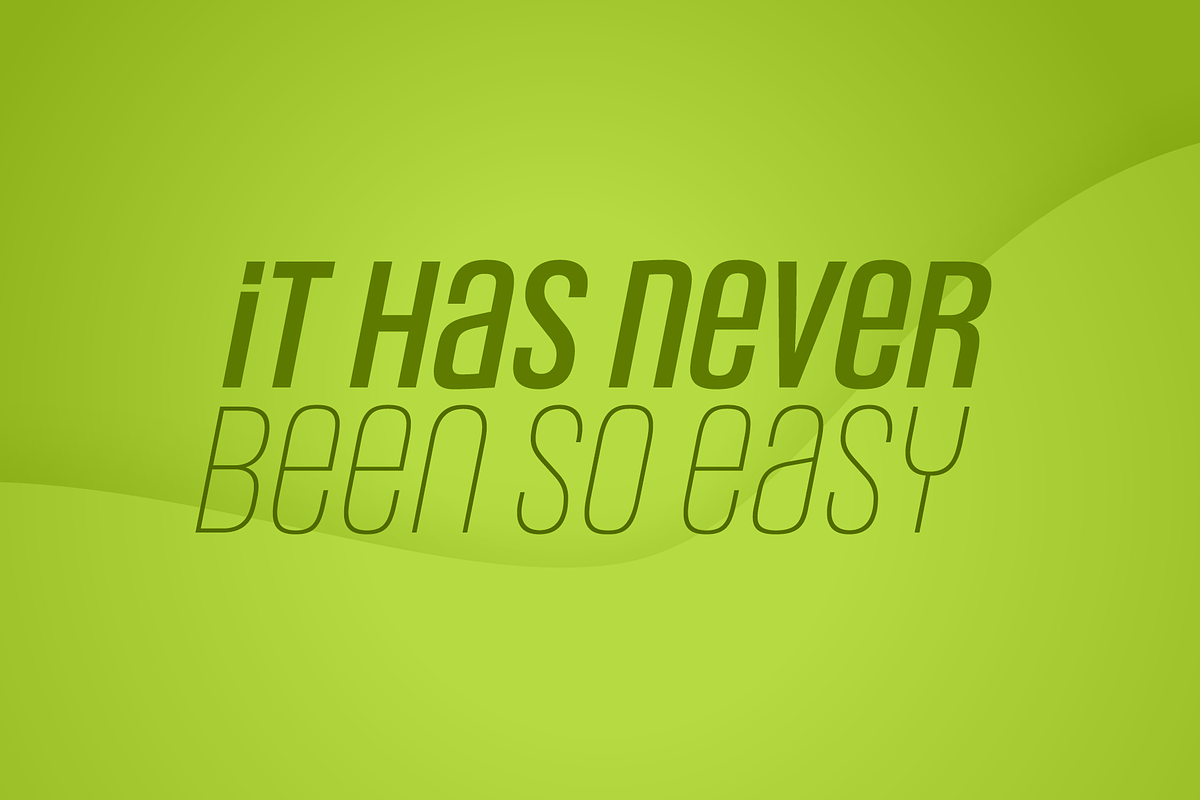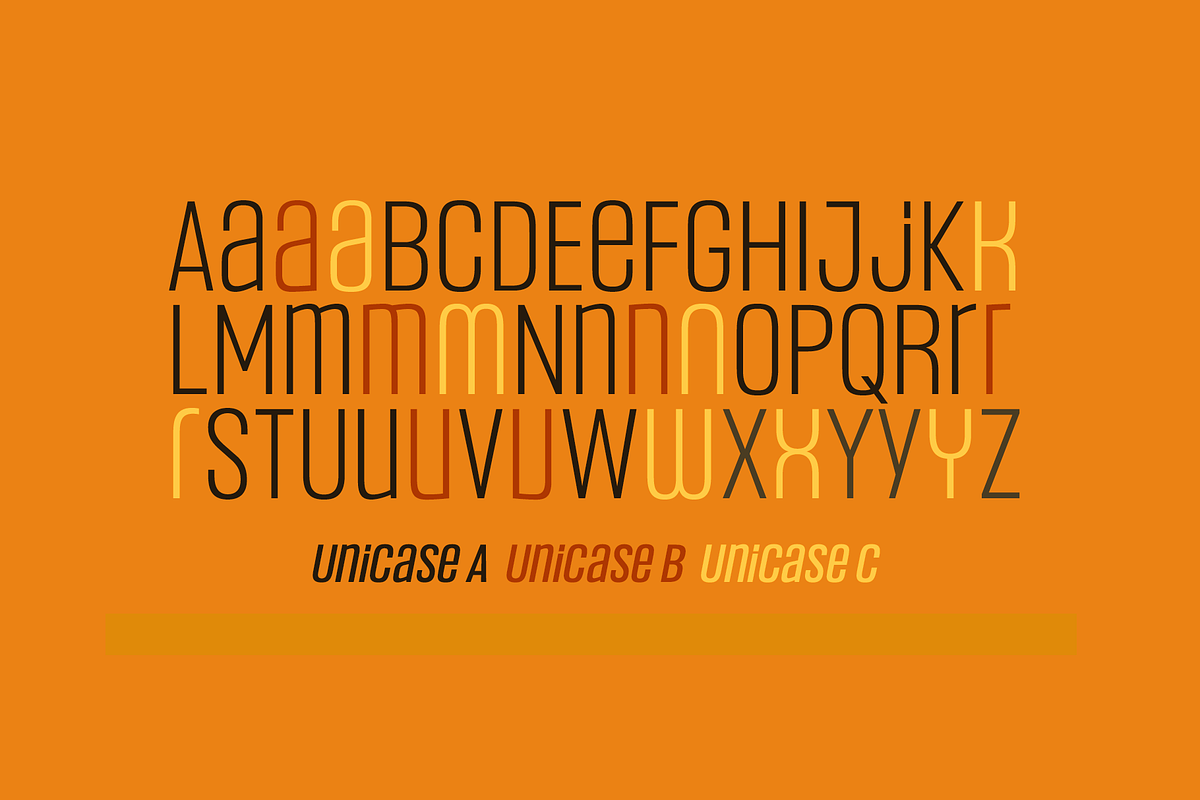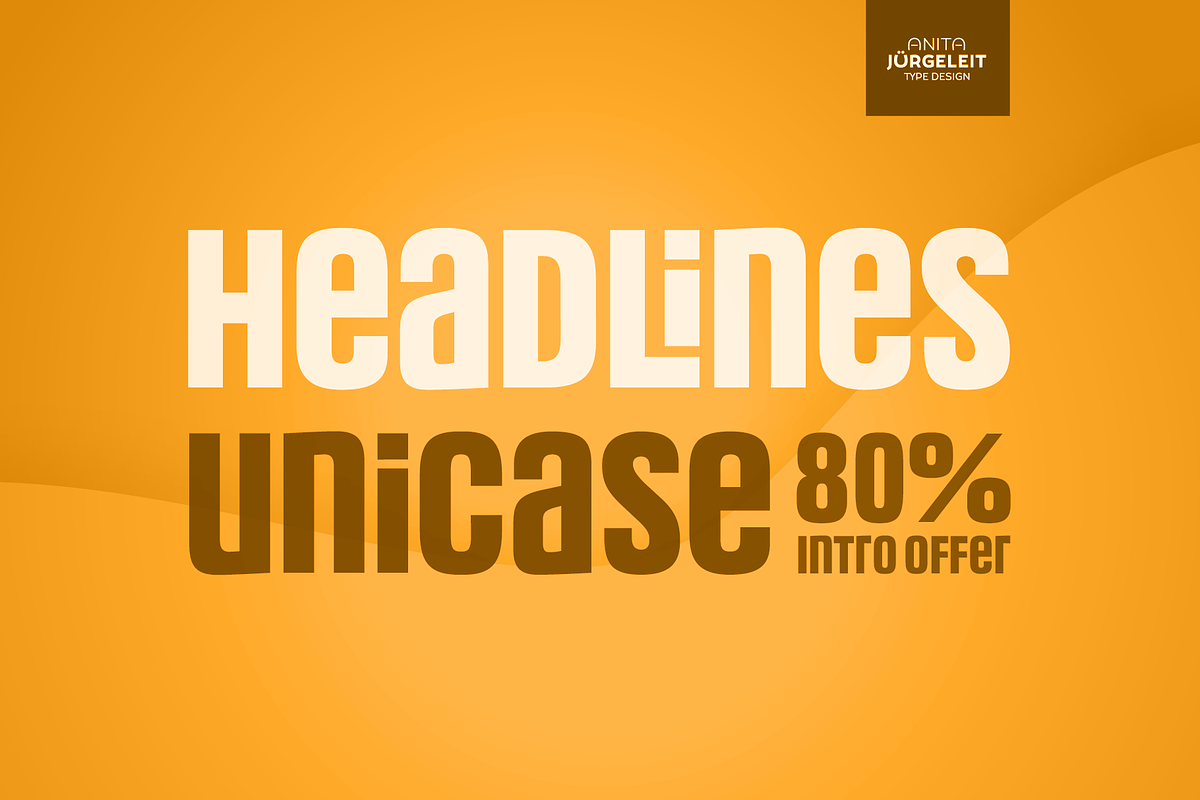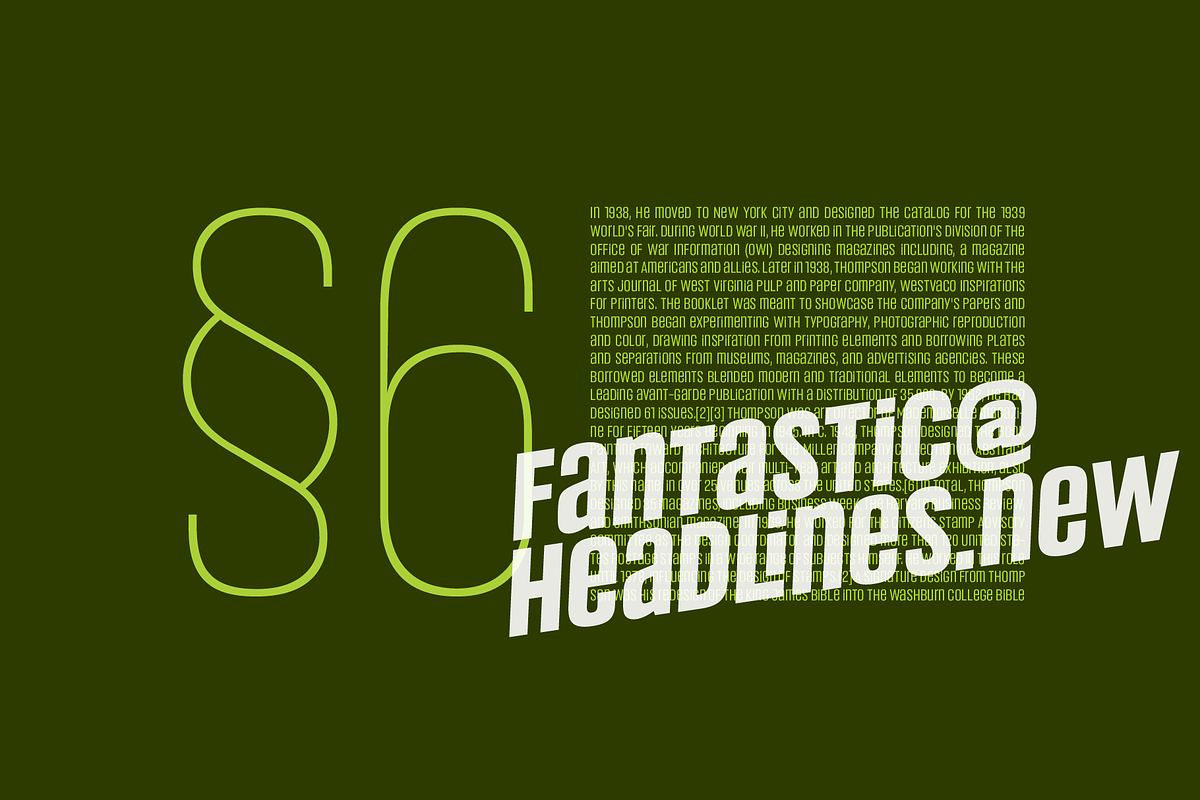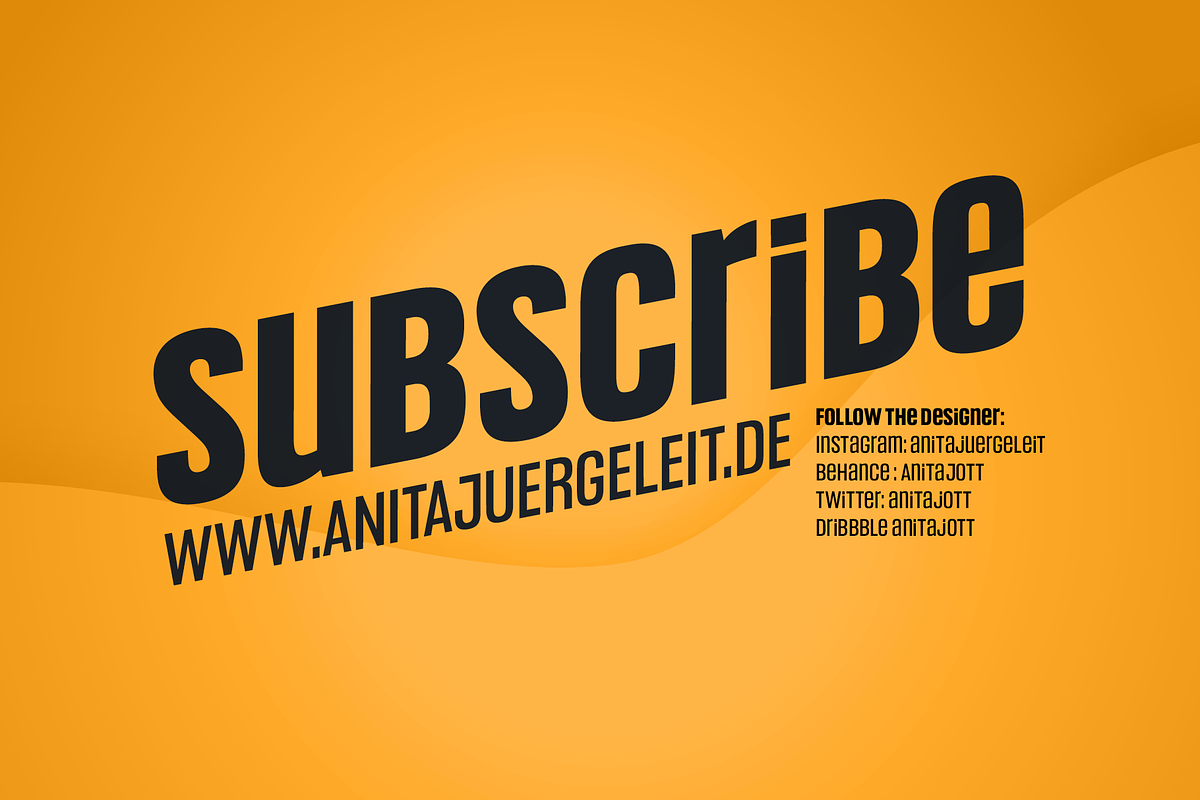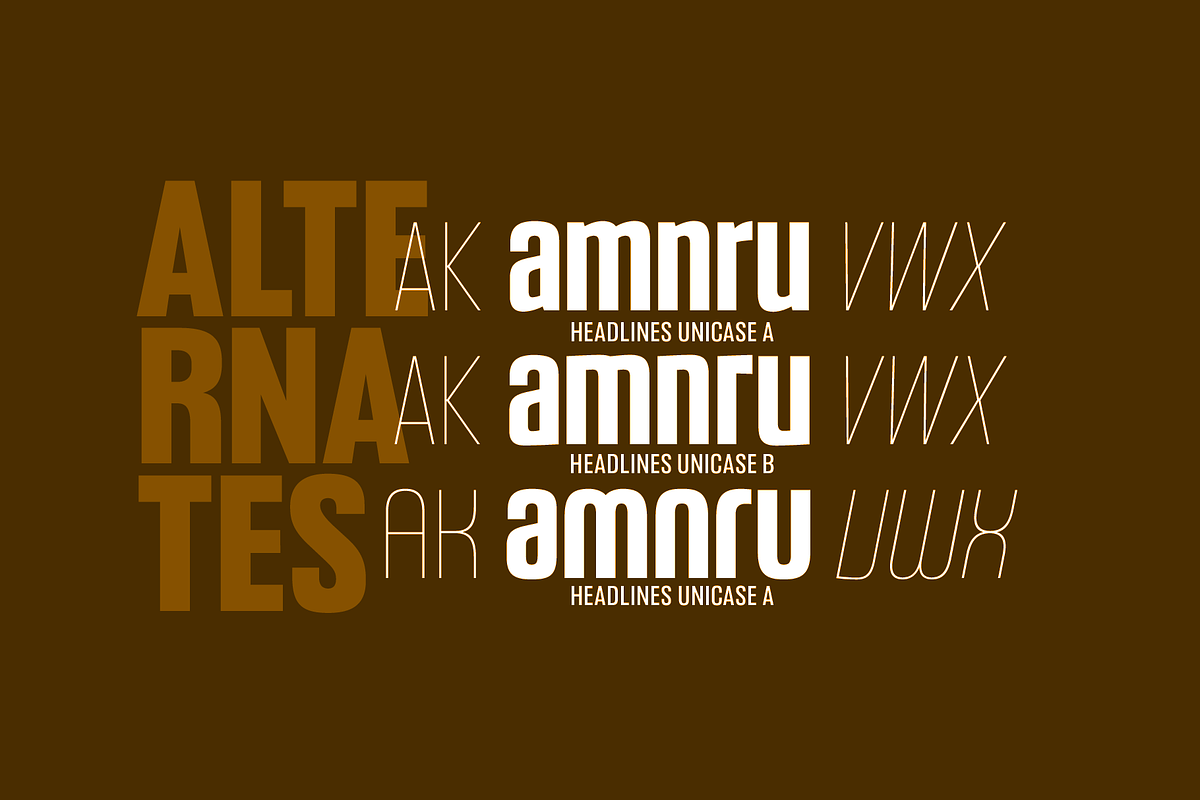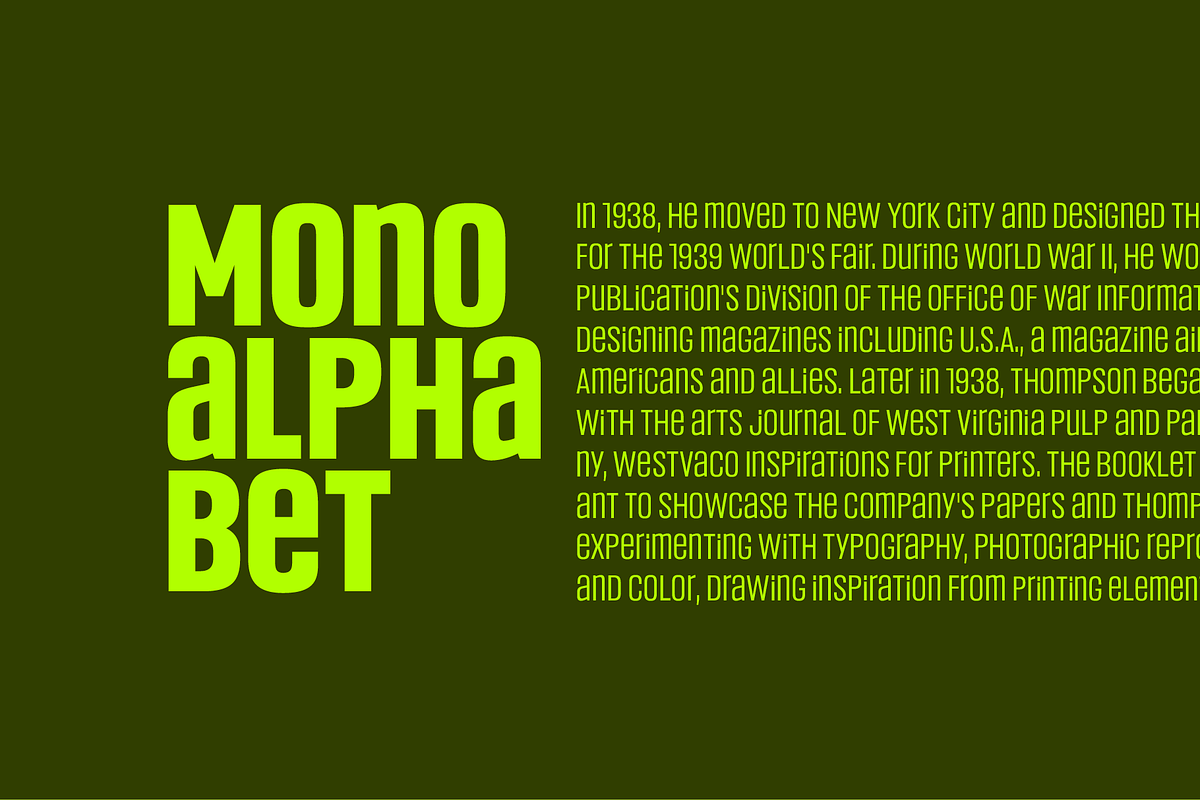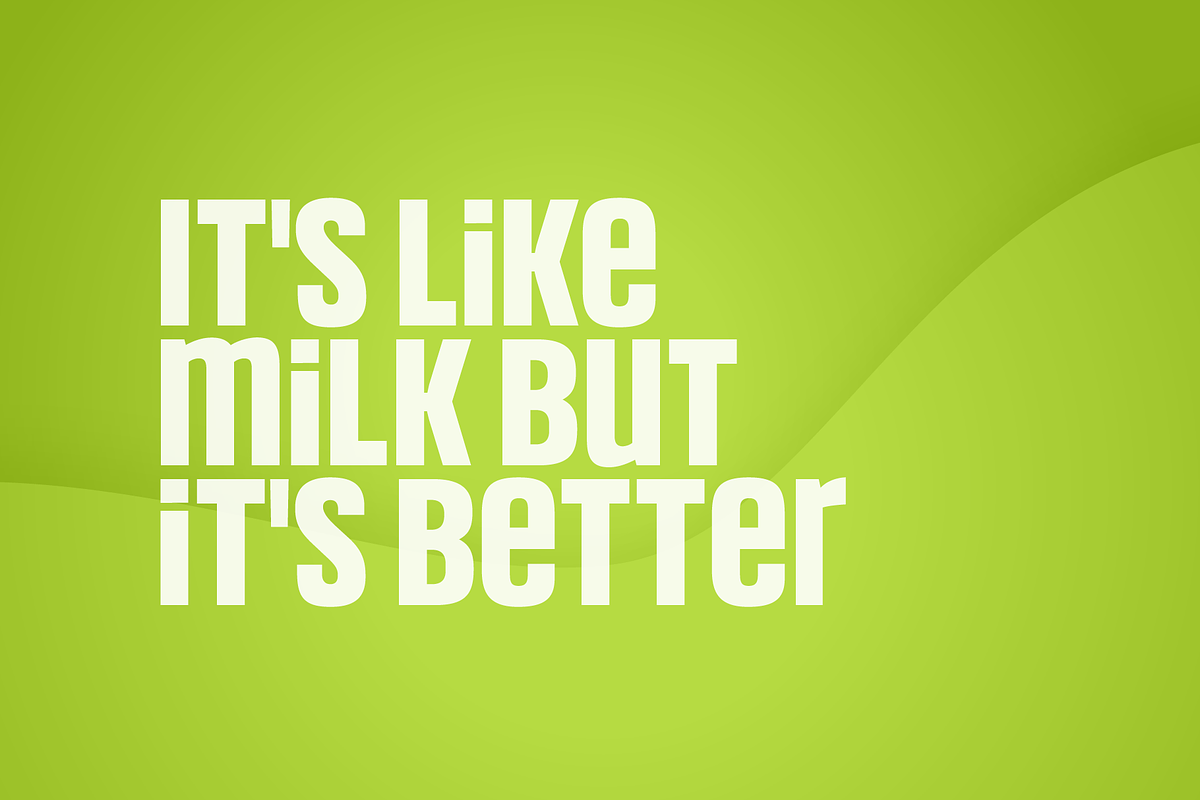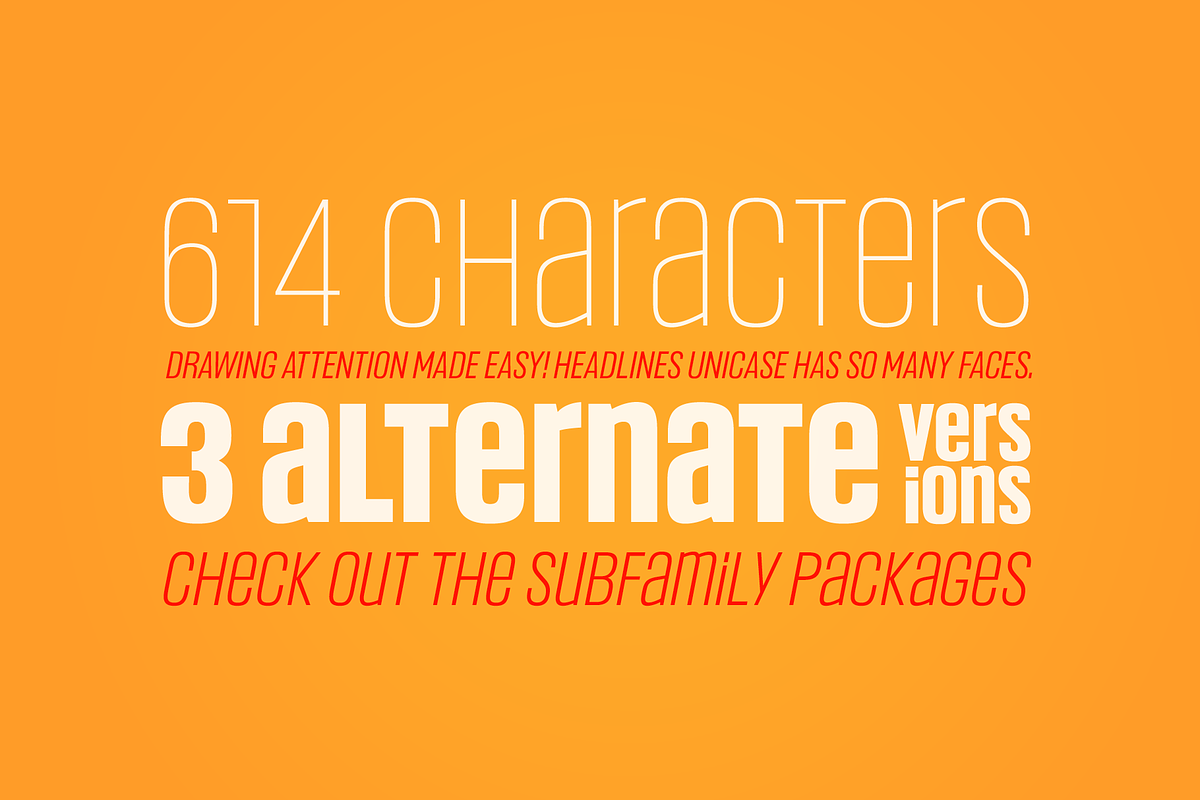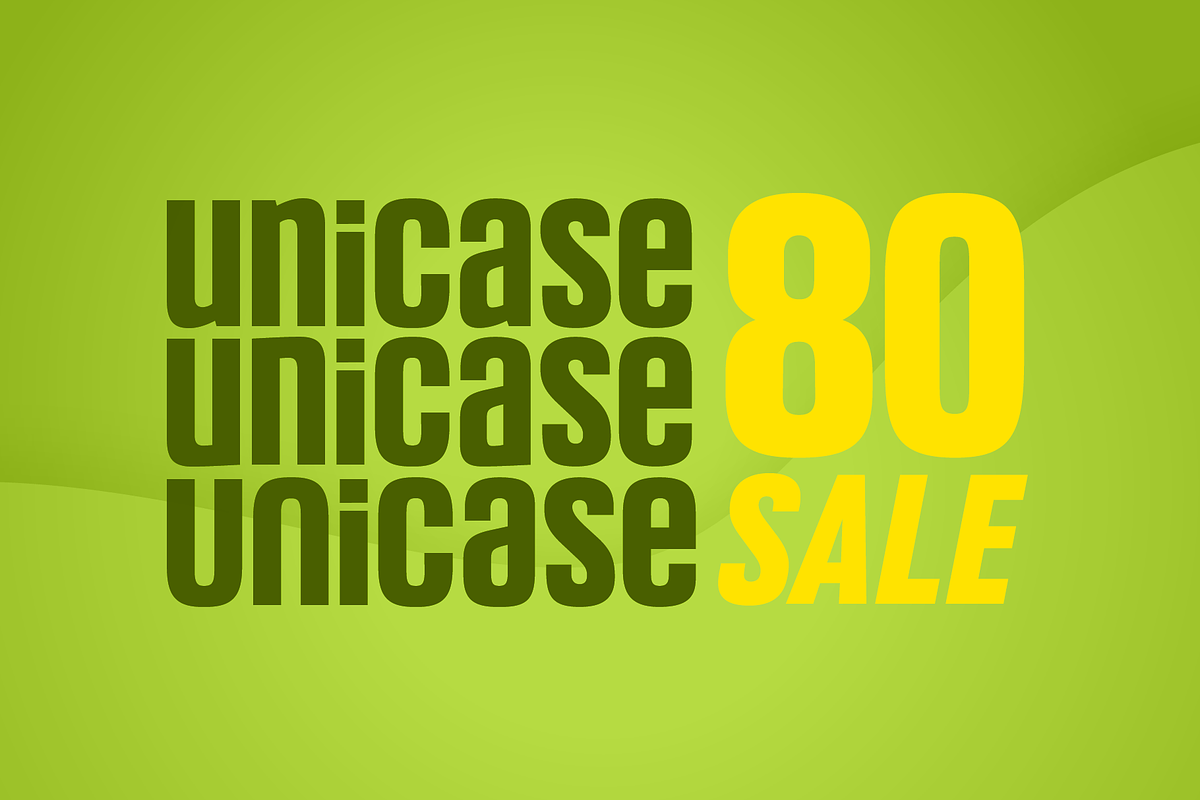
Headlines Unicase Font Family
Here comes the great and happy news: The “Headlines” font family has been expanded to include the coolest UNICASE family! Yes, you heard right: UNICASE! Wohou!
Three alternative variants with seven weights plus italics: A total of 42 styles! This is your biggest and most exciting headline font family you have ever worked with. All alternate characters can be used safely without OT-savvy software. It just works everywhere: From Text Edit to Canva you can access all of the alternative characters as you just pick the right font style.